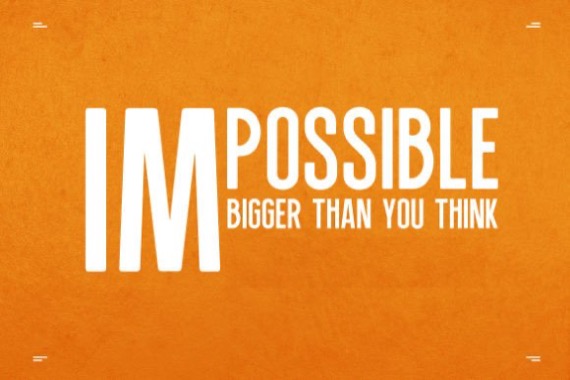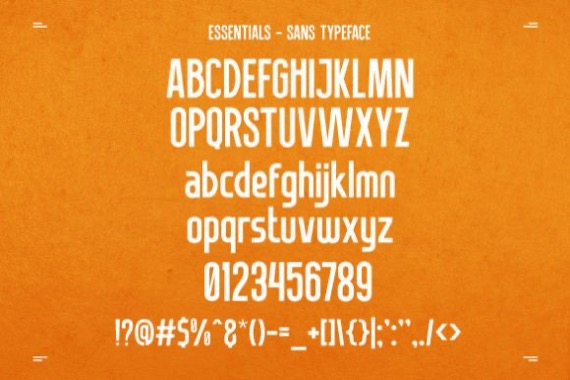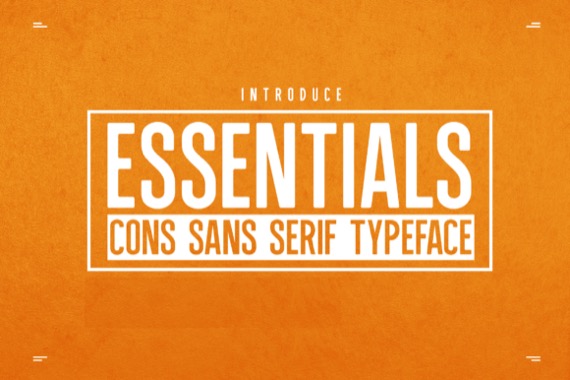
Proudly presenting a new cool basic typeface from Connverts Studio that also supports Multilingual Characters, Essentials is a condensed sans serif font featuring modern, formal, bold, characters. Add this font to your most creative ideas, and notice how it makes them stand out!
Essentials Sans Serif Font